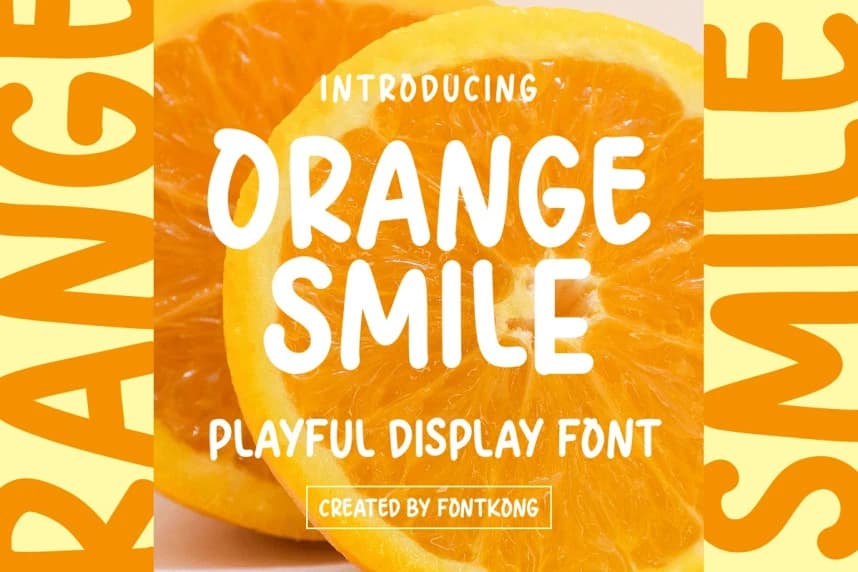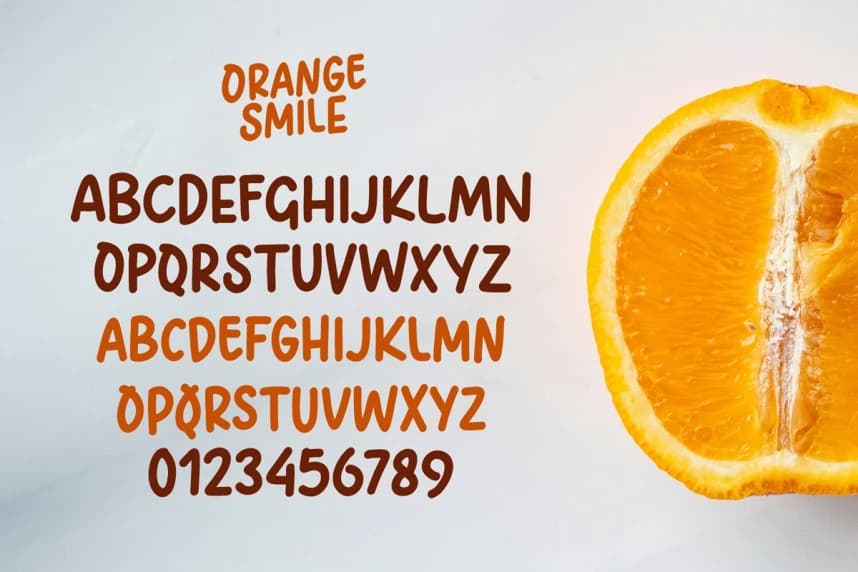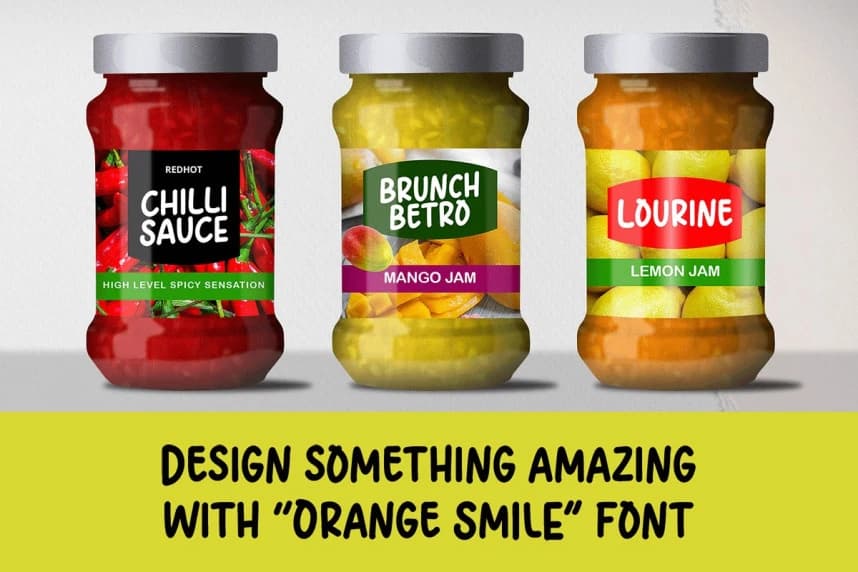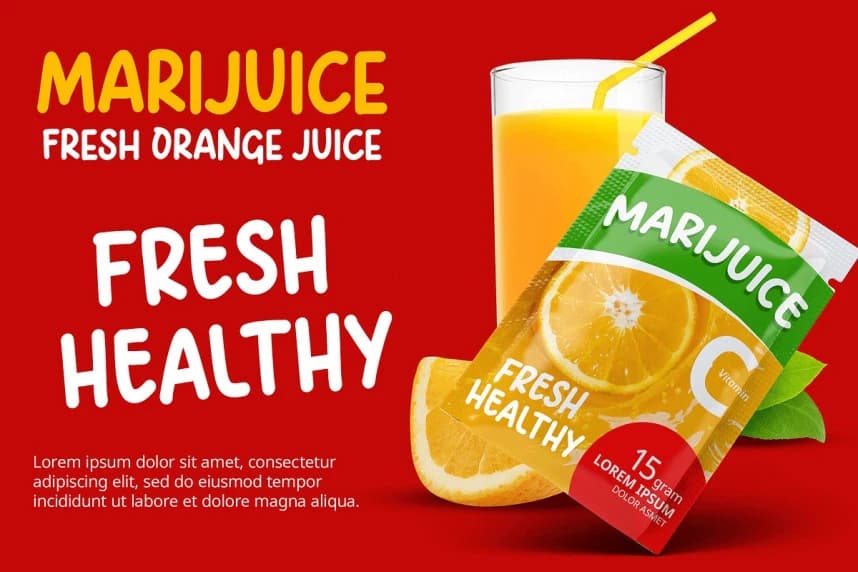
Orange Smile Font
Orange Smile Font, a cheerful and lively display font designed to bring joy and energy to your creative projects. With its bold curves and playful character, Orange Smile is perfect for creating fun and eye-catching designs.